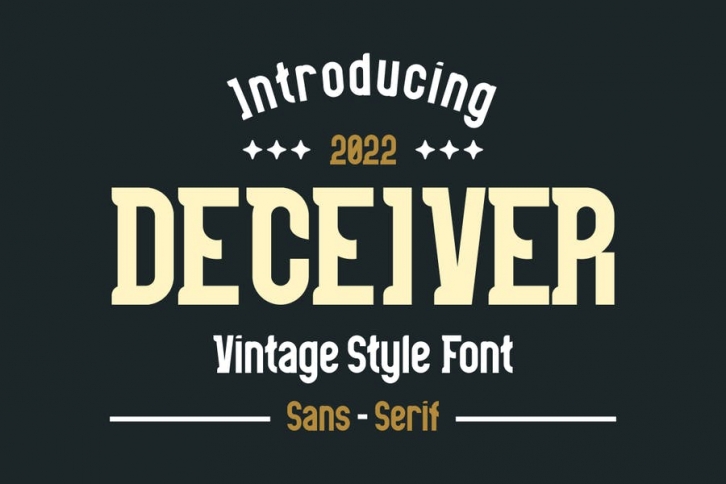
Introducing our new product DECEIVER Font - Modern Font DECEIVER Font** - Modern Font is a bold and authentic display font. The font is suitable for any branding project like logo, t-shirt printing, Product and many more. outstanding in a wide range of contexts.